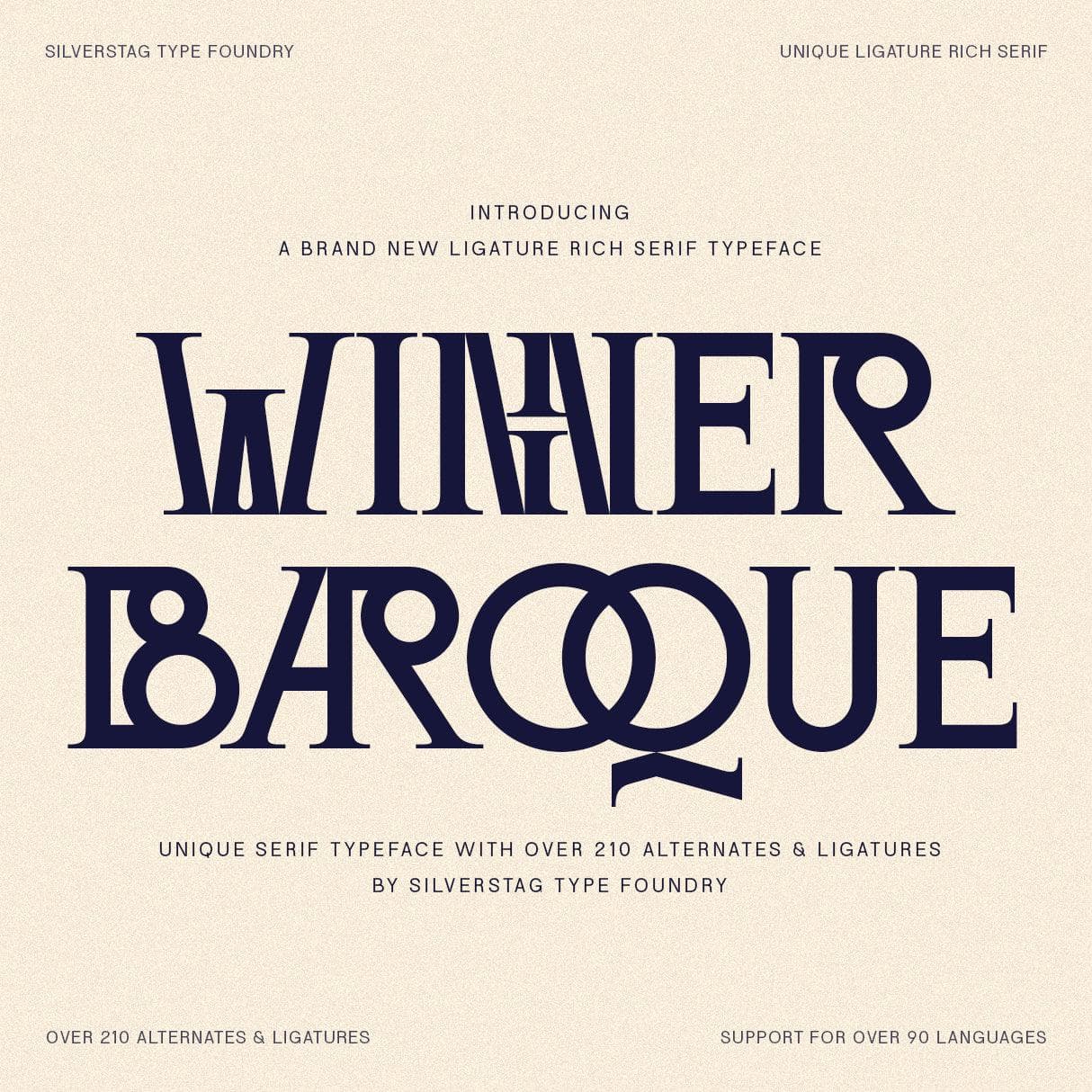
<p><strong>Introducing SLTF Winner Baroque, a sophisticated and versatile serif typeface designed to elevate your creative projects.</strong> This typeface is a harmonious blend of timeless baroque-inspired serifs and modern grotesk sans-serif influences, making it a one-of-a-kind addition to any designer’s toolkit. SLTF Winner Baroque is not just a font—it’s a bold statement of style, elegance, and functionality.</p><p><strong>What Makes SLTF Winner Baroque Unique?</strong></p><ul><li><p><strong>Over 210 Alternates and Ligatures:</strong> Unlock endless possibilities for creative typography. The extensive selection of ligatures and alternates ensures that every project can have a unique and tailored look.</p></li><li><p><strong>Nine Weights:</strong> From Thin to Black, SLTF Winner Baroque offers a wide range of weights, allowing you to create stunning contrasts and versatile designs, whether for headlines, body text, or display purposes.</p></li><li><p><strong>Variable Font Included:</strong> Customize your typography effortlessly with the variable font version. Adjust weights and styles with precision to fit your project needs seamlessly.</p></li></ul><p><strong>Perfect for These Applications:</strong></p><ul><li><p><strong>Editorial and Publishing:</strong> Ideal for magazine layouts, books, and digital publications where elegance and readability are key.</p></li><li><p><strong>Luxury Branding and Logos:</strong> Elevate your brand identity with a typeface that exudes sophistication and class.</p></li><li><p><strong>High-End Packaging:</strong> From cosmetics to gourmet foods, SLTF Winner Baroque adds a touch of refinement to product packaging.</p></li></ul><p>Happy creating everyone!</p>